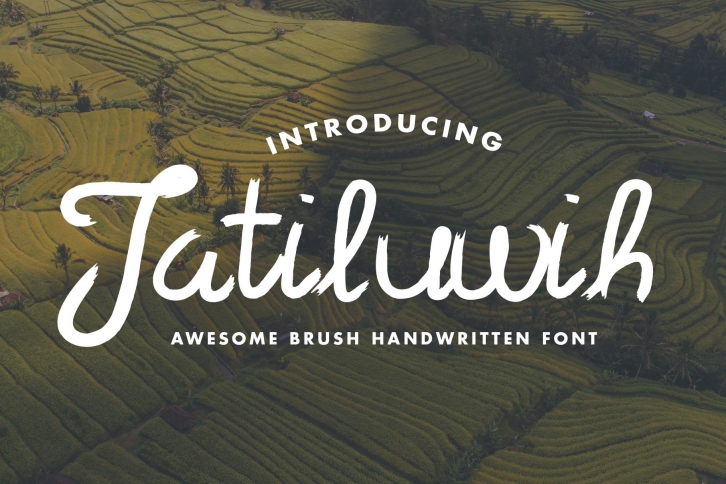
Jatiluwih is awesome handwritten font that bring adventure looks.
Jatiluwih is perfect for branding projects, logo, social media posts, advertisements, product packaging, product designs, label, photography, watermark, and any projects that need handwriting taste.